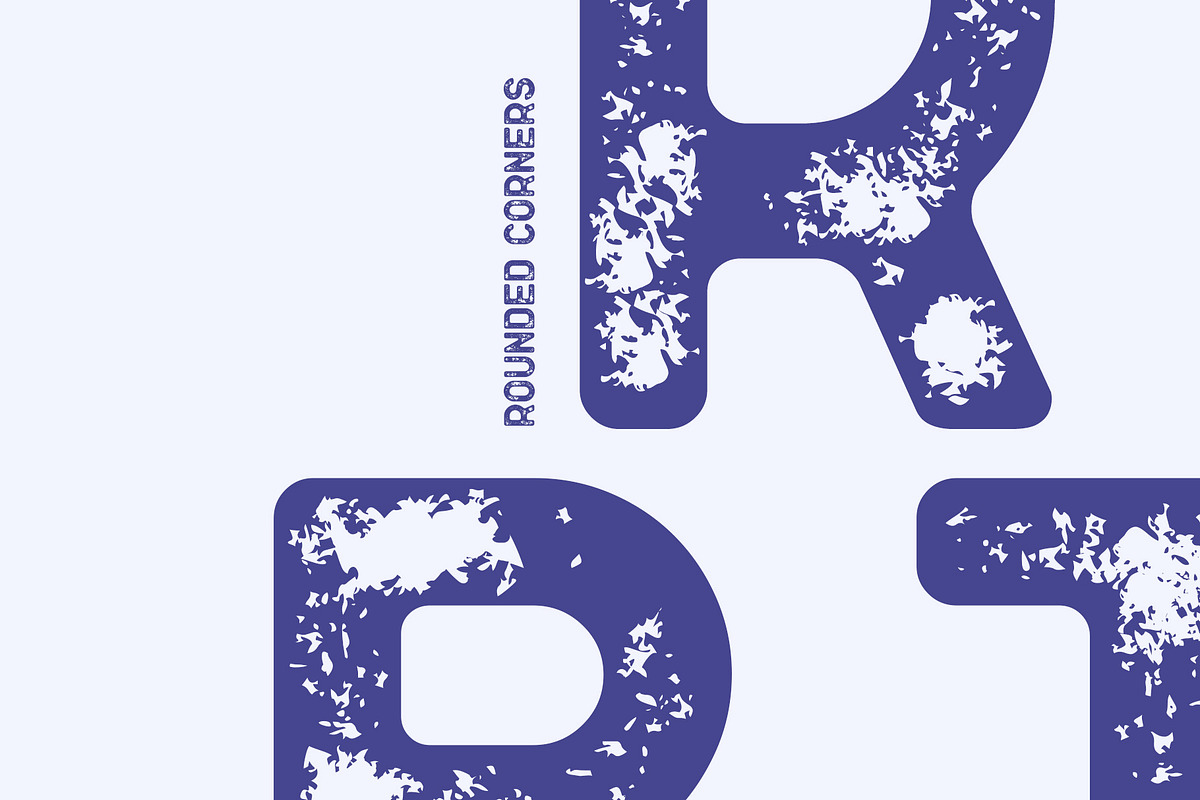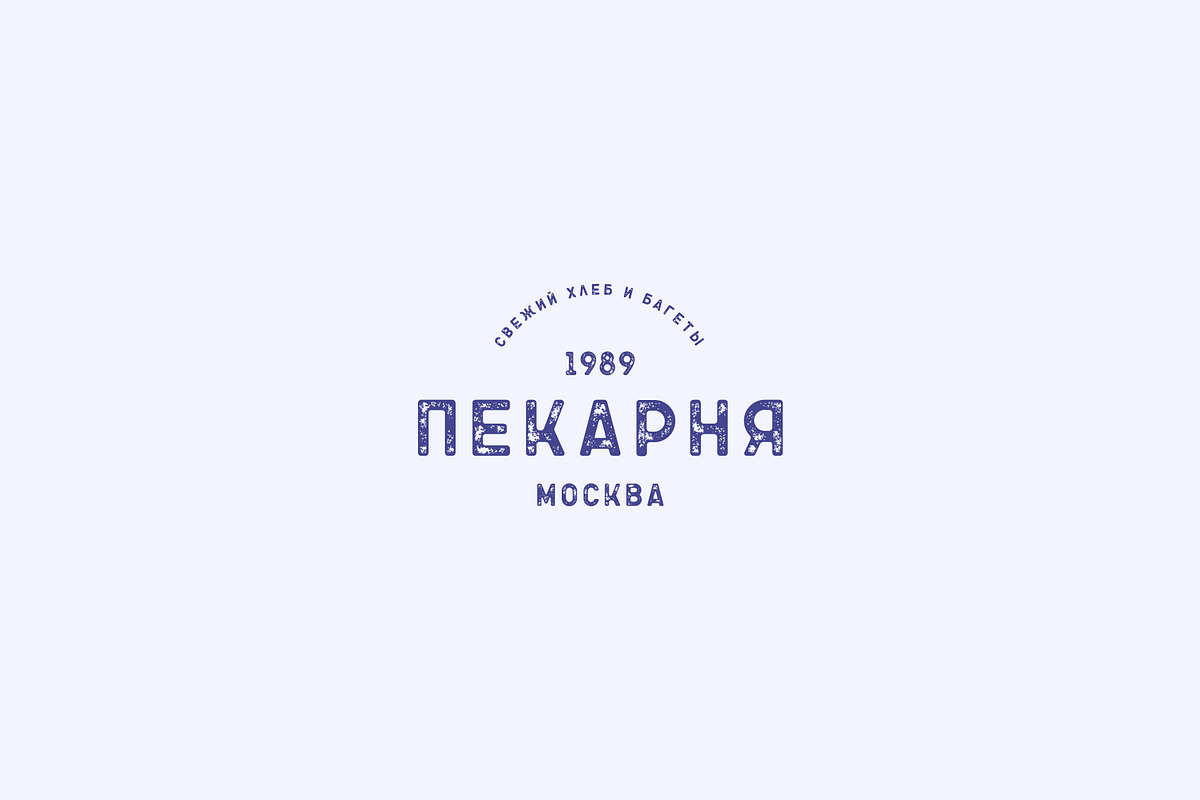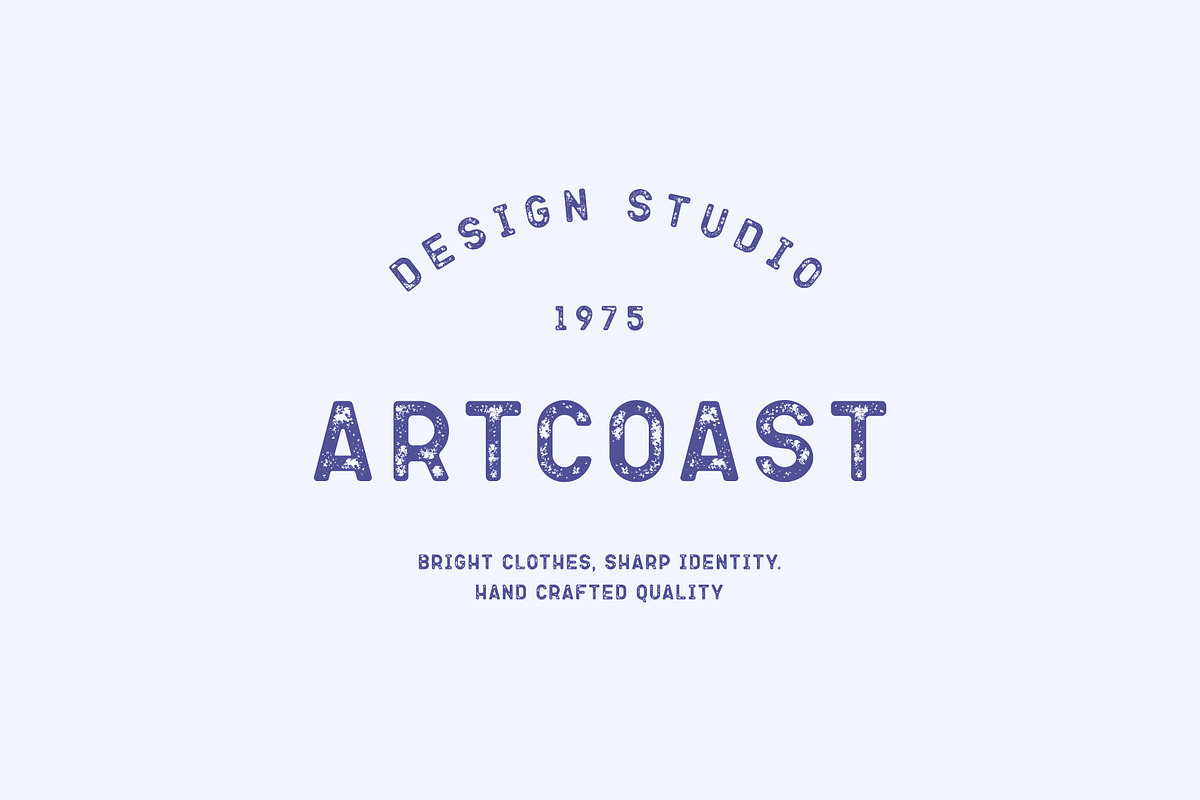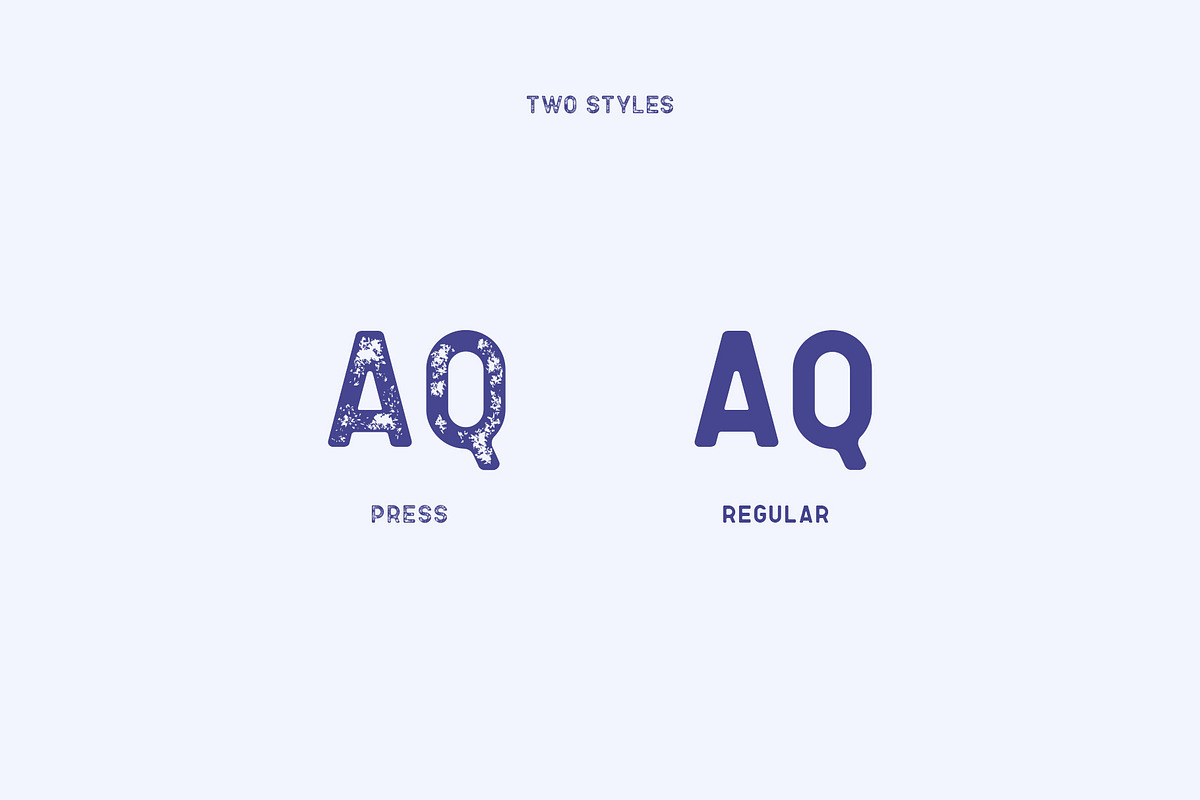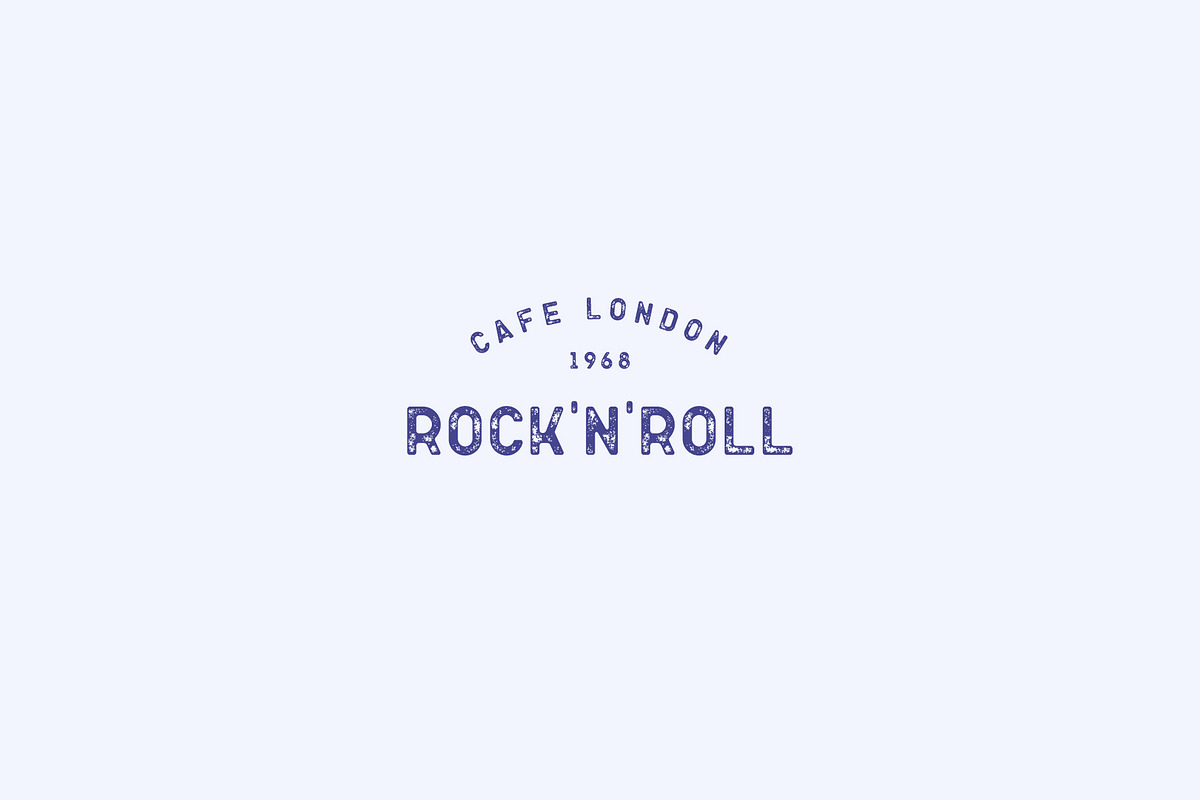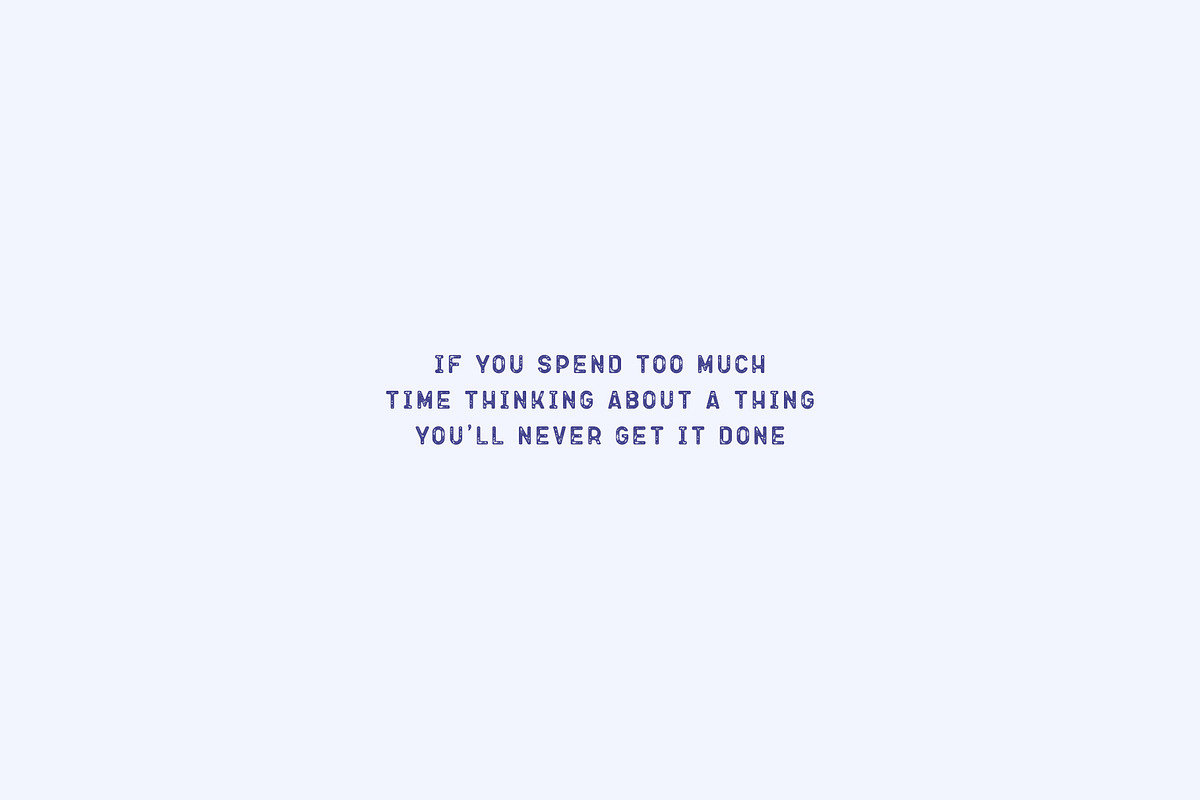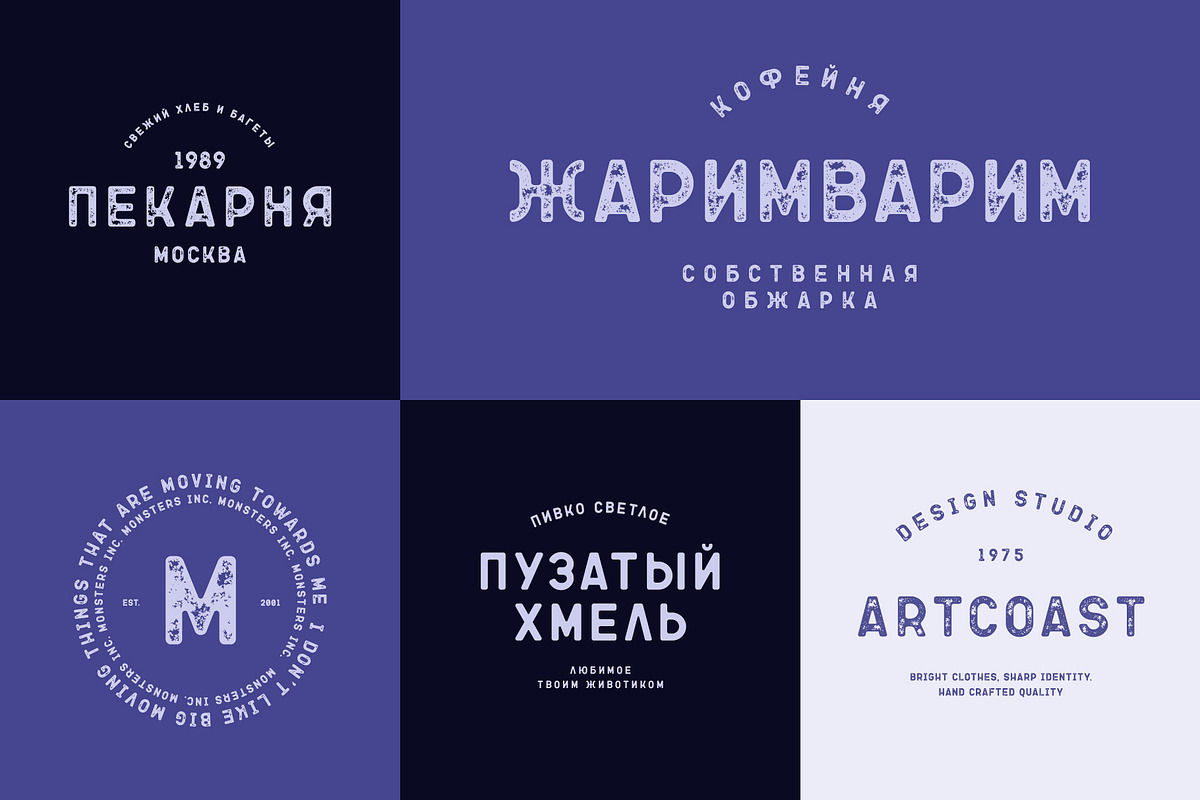
Ovsyanka - Sans Serif Font Cyrillic
Ovsyanka - Sans Serif Font Cyrillic by Artcoast Std. is a font selected for branding, posters, packaging, typography.
- Ovsyanka Press Regular
- Ovsyanka Regular
Why Ovsyanka - Sans Serif Font Cyrillic is worth a look
Ovsyanka - Sans Serif Font Cyrillic by Artcoast Std. fits naturally into Branding, posters, packaging, typography.